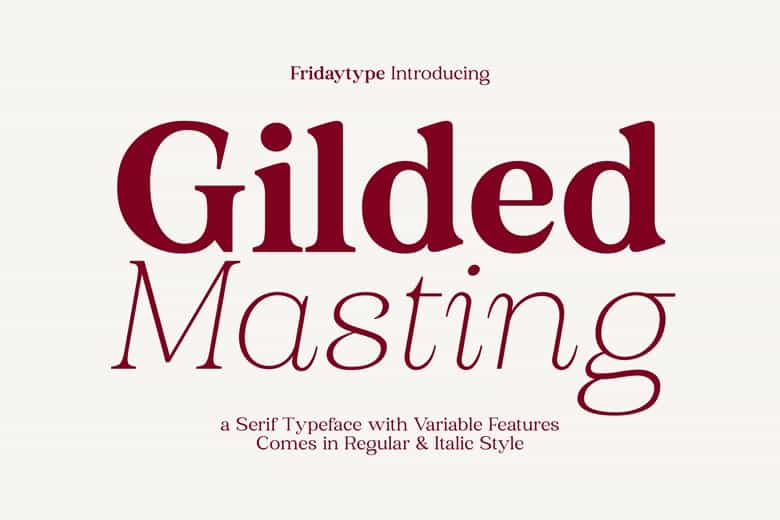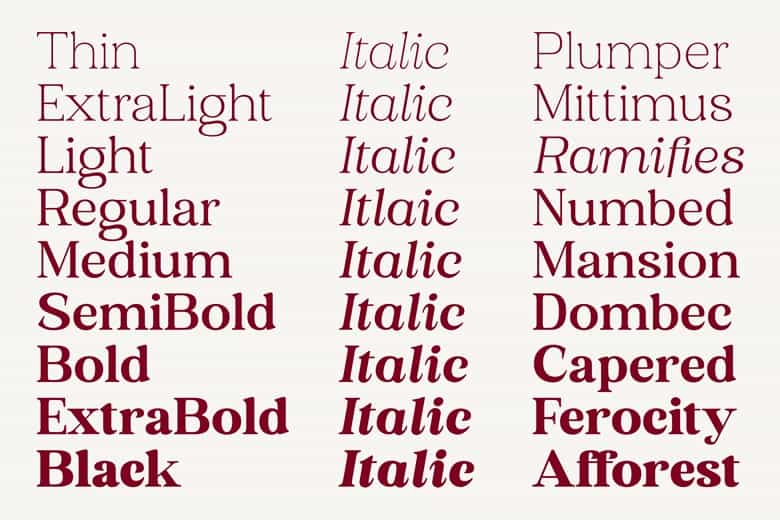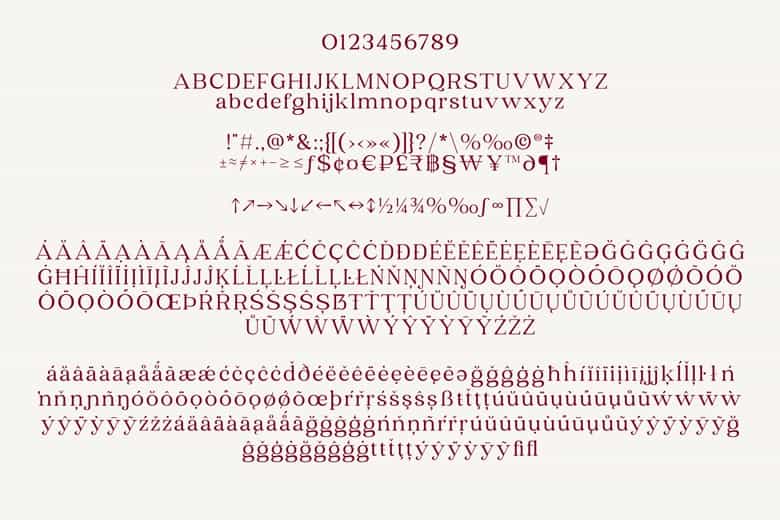
Gilded Masting is a refined serif type family blending sophistication and elegance, with two distinct styles: This typeface is a bold Regular and a smooth, elegant Italic. That is why it can be used in different fields, including branding and packaging, web design, and editorial design.